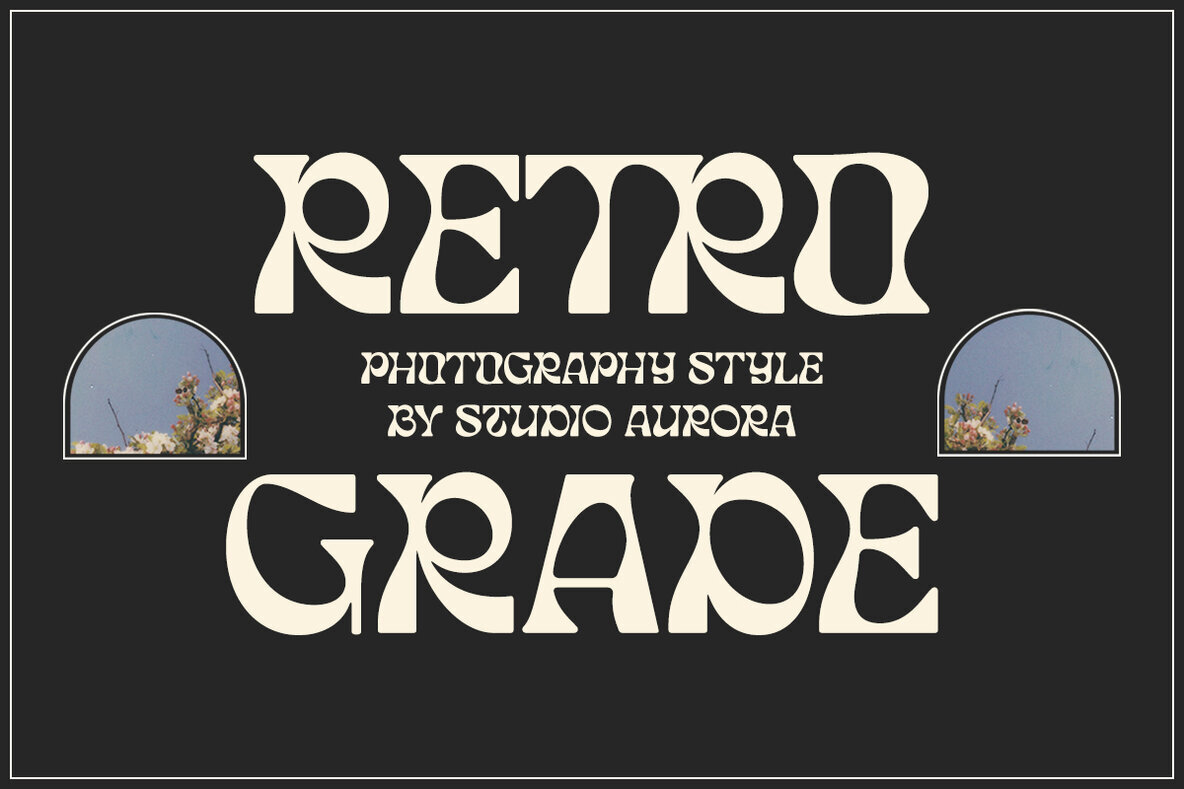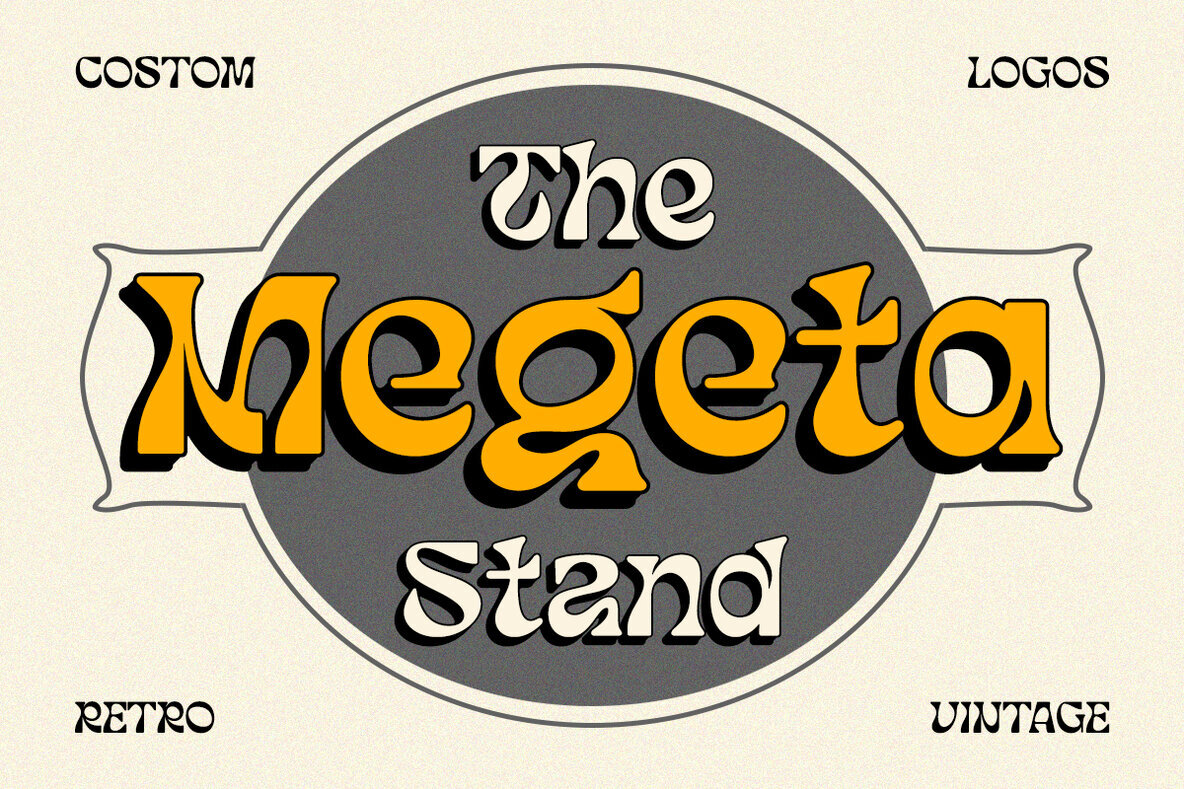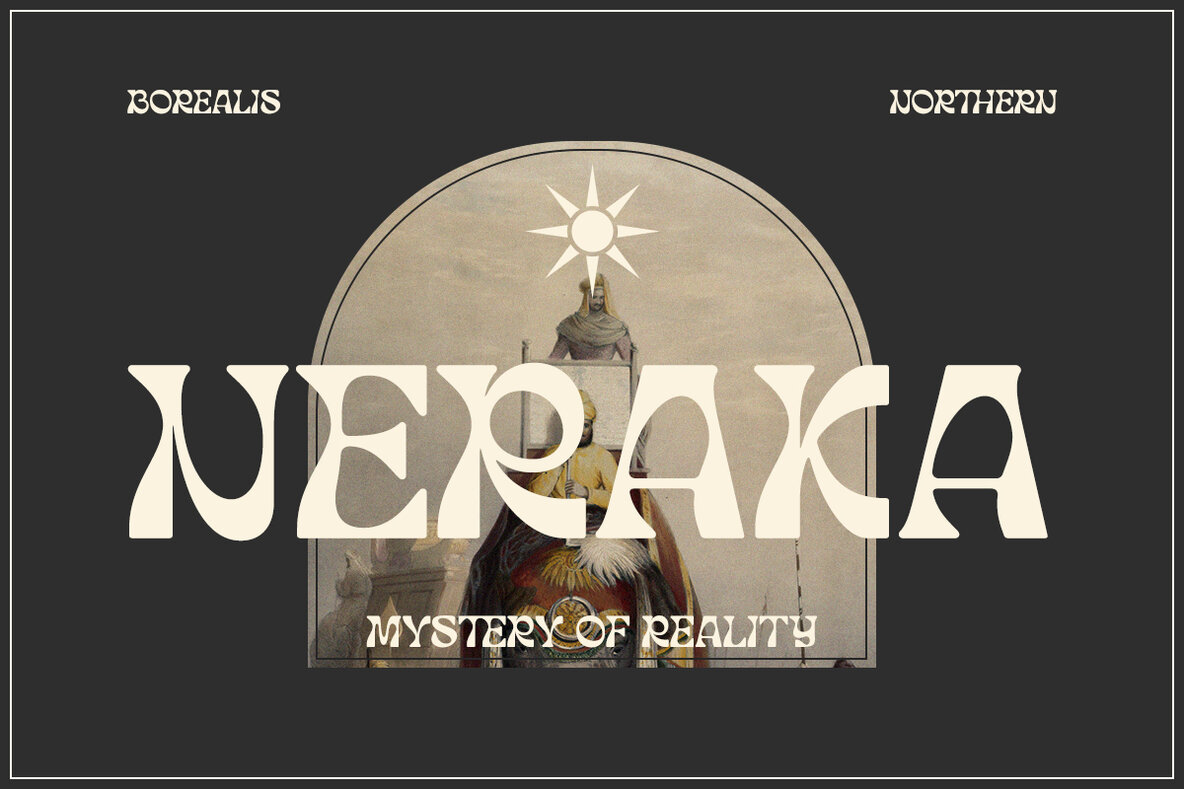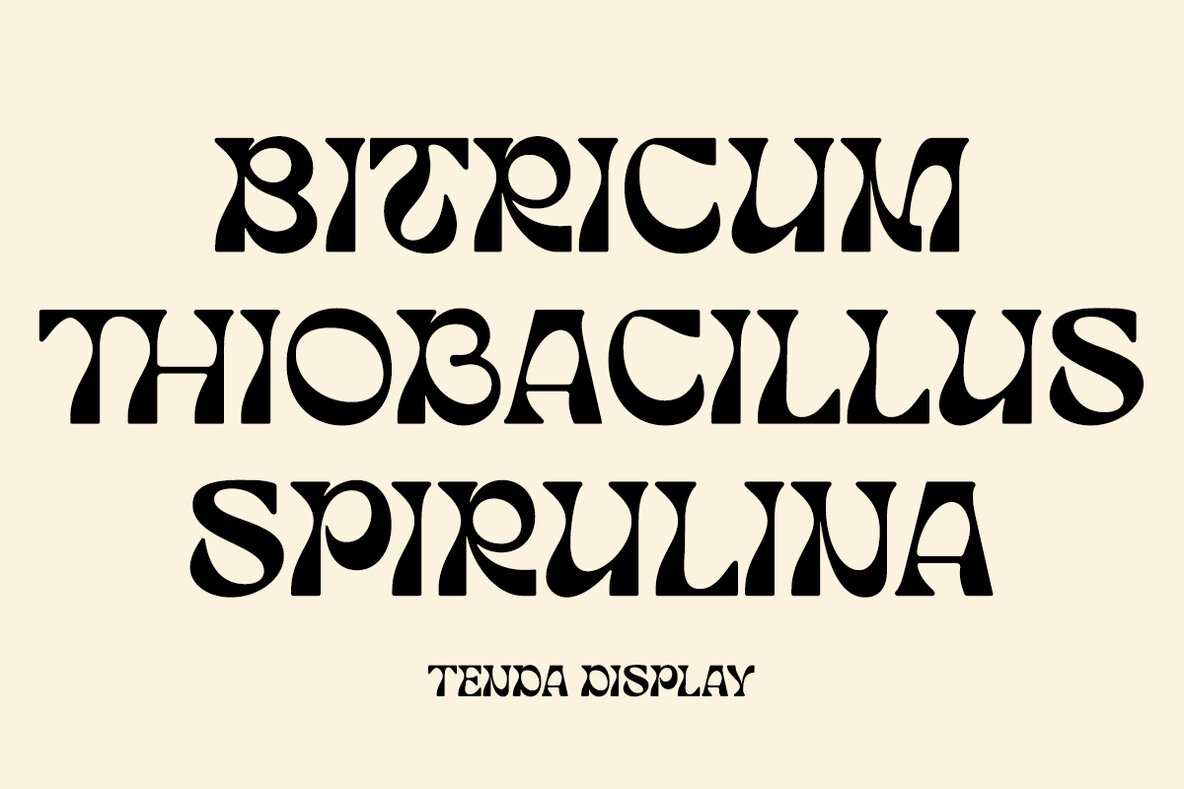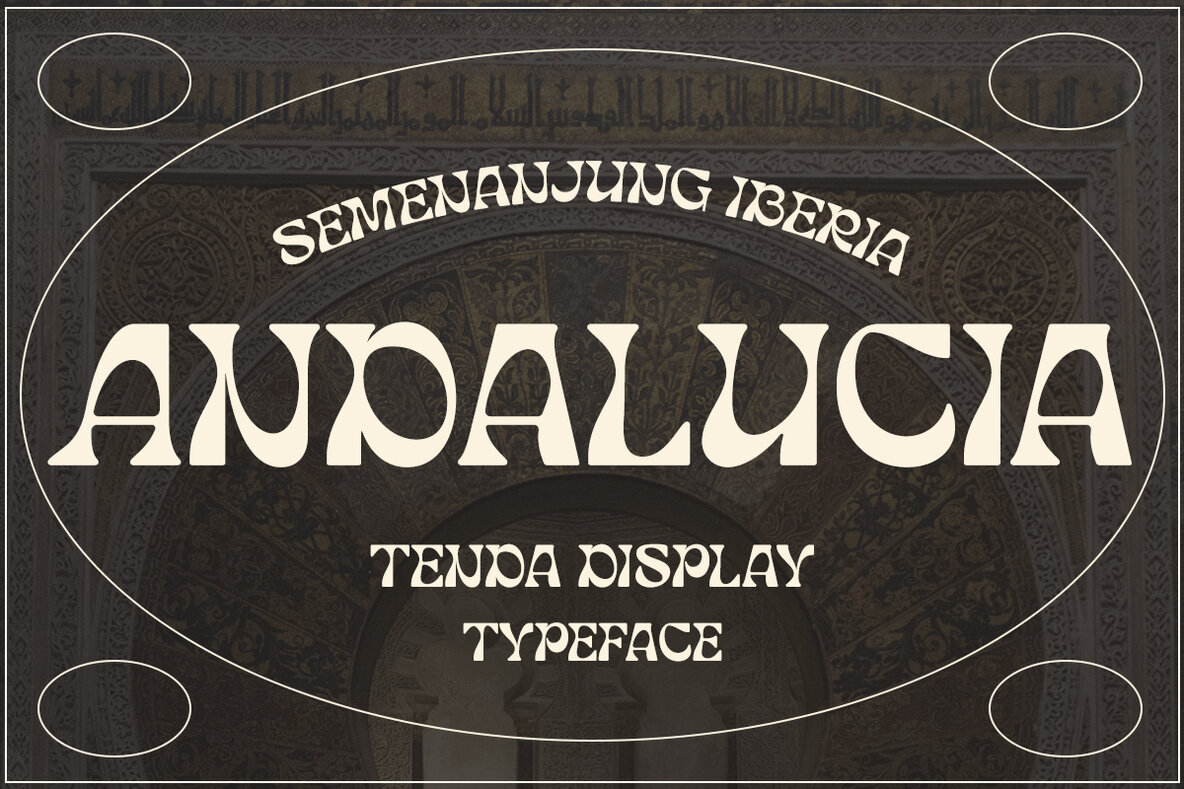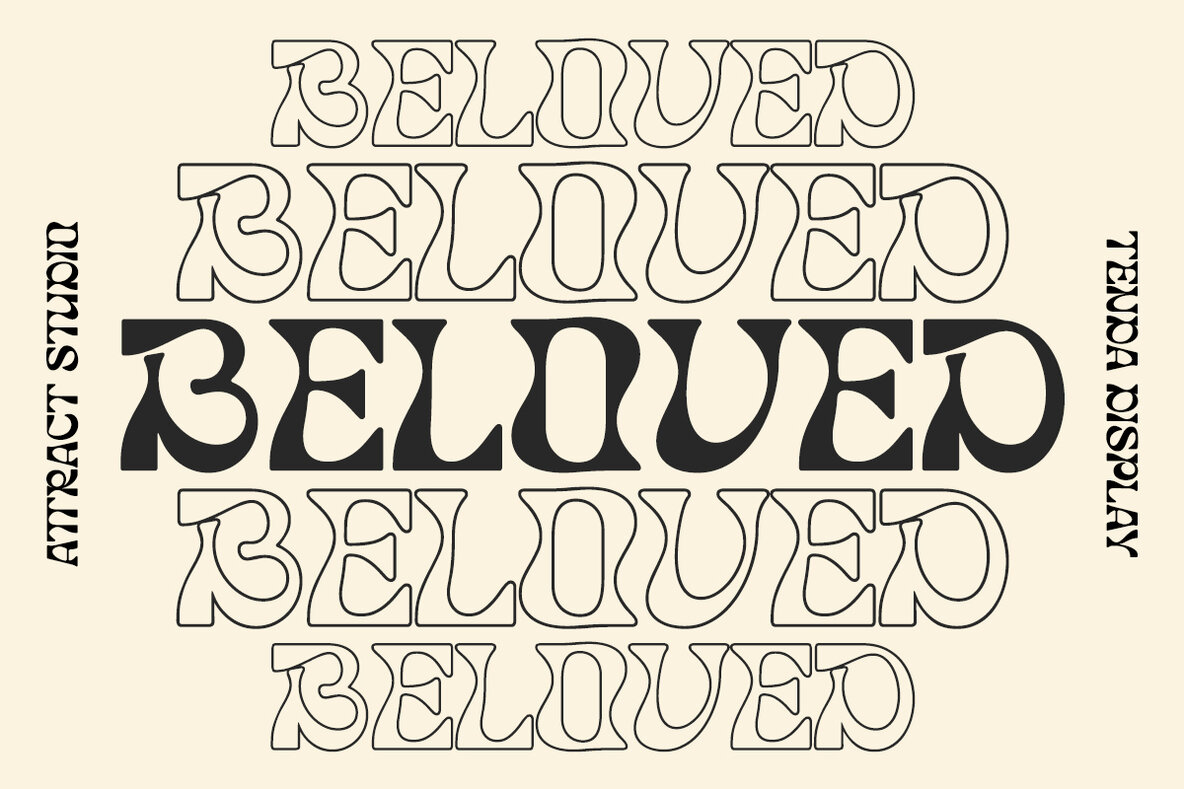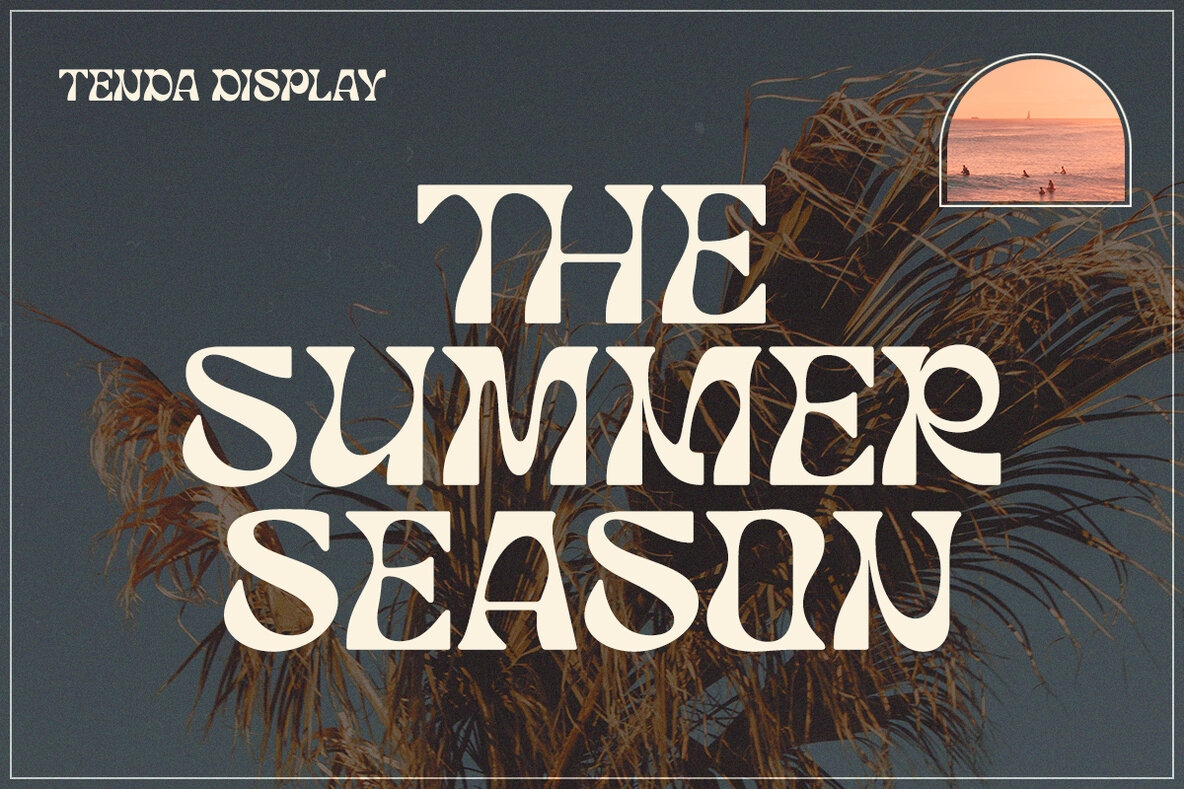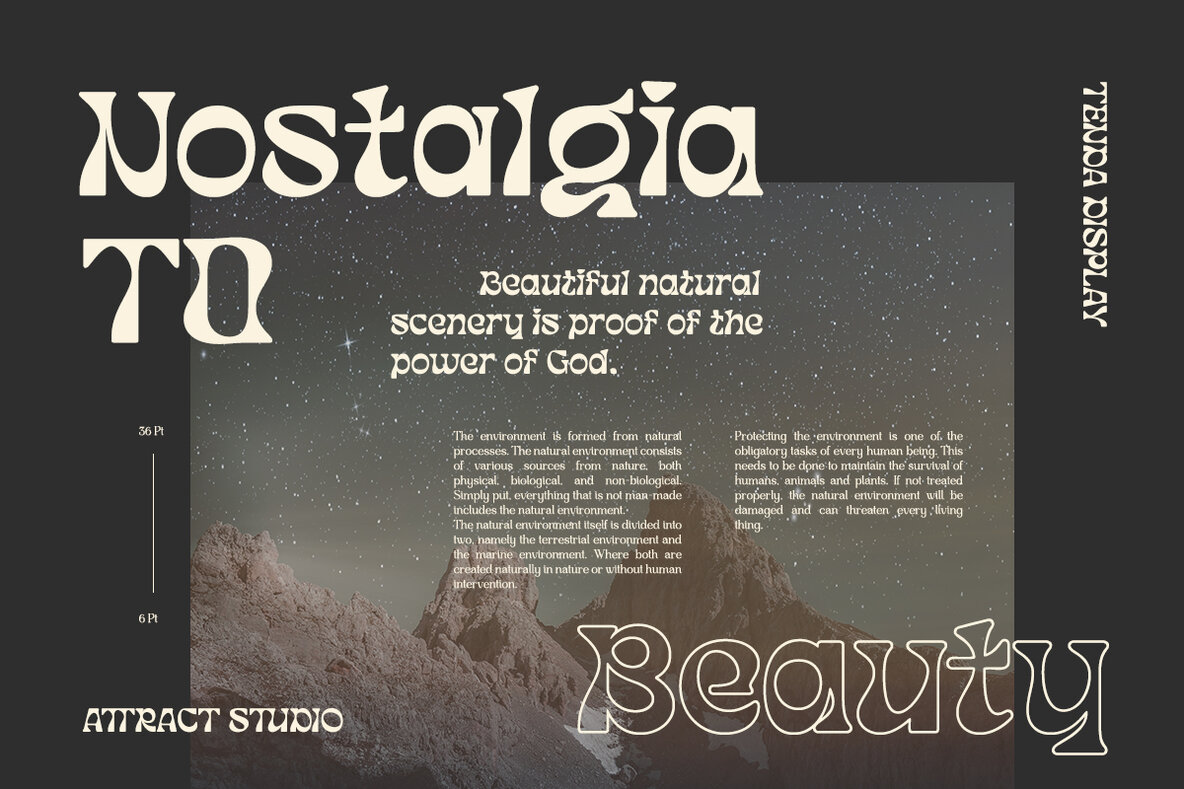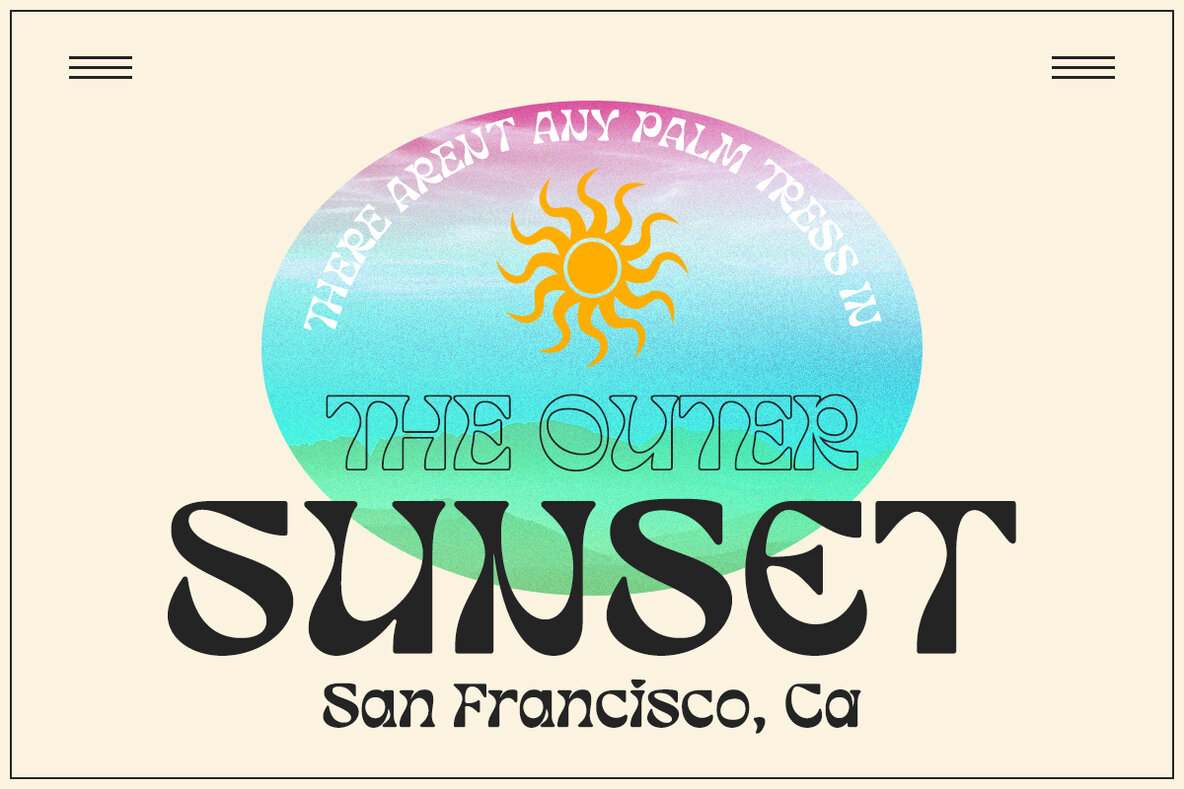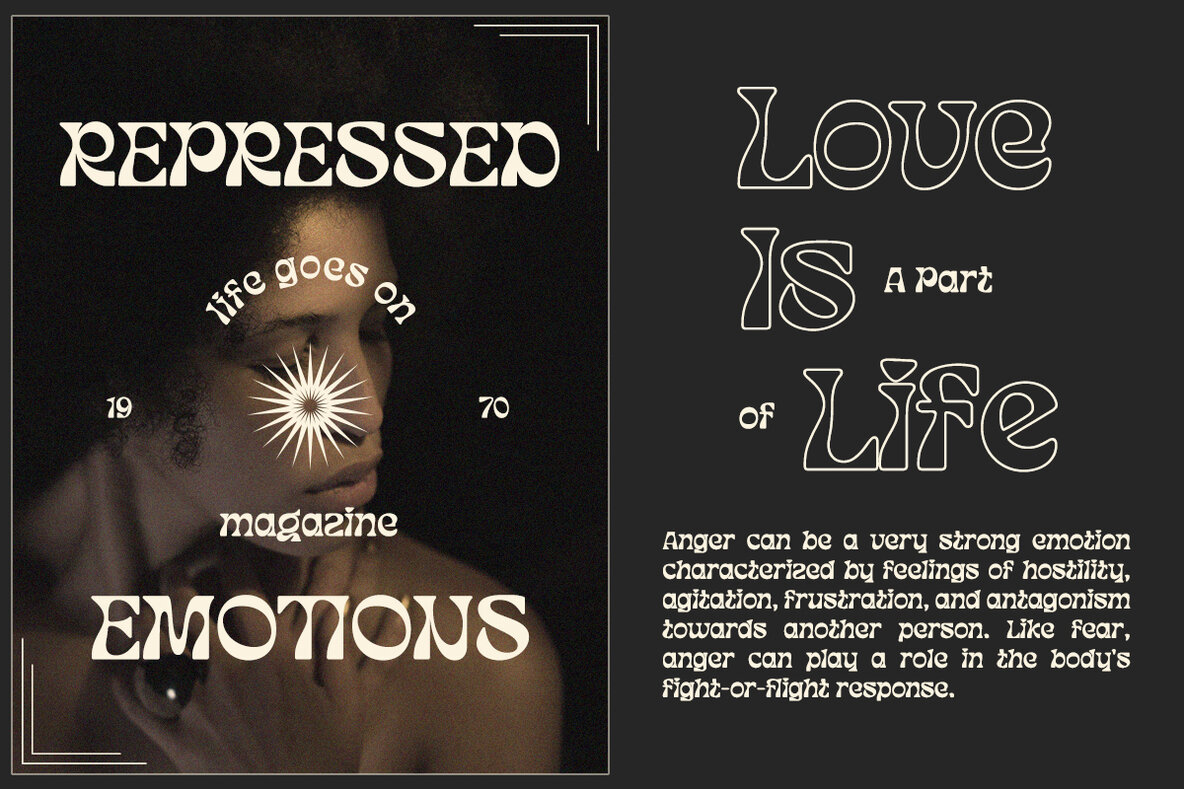
Tenda Display Font
Tenda Display
Tenda Display Extrude
Tenda Display Outline
Tenda Display is a font that brings whimsy and emotion to your creative projects. Designed with a bold character, it stands out in a variety of applications. Its OpenType features include alternate letters and ligatures, offering an array of unique characters that enhance your design potential.Tenda Display: Whimsical and Bold Font Design